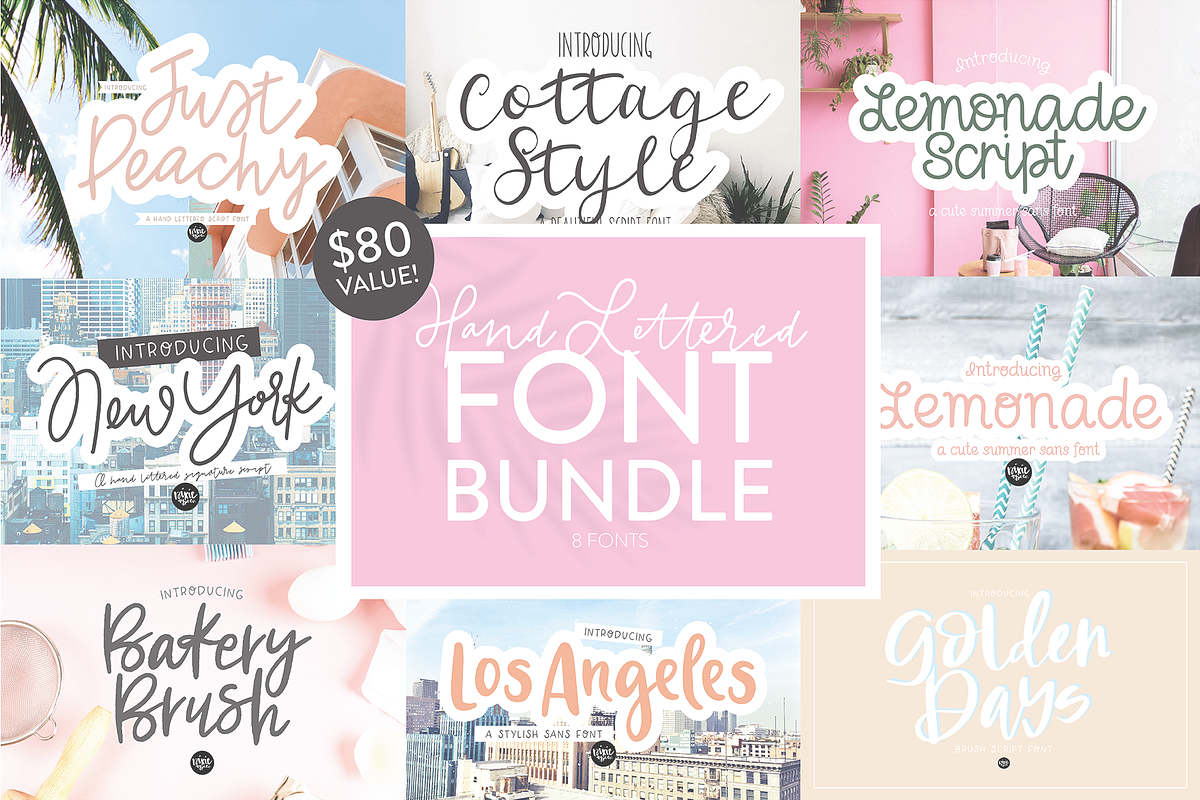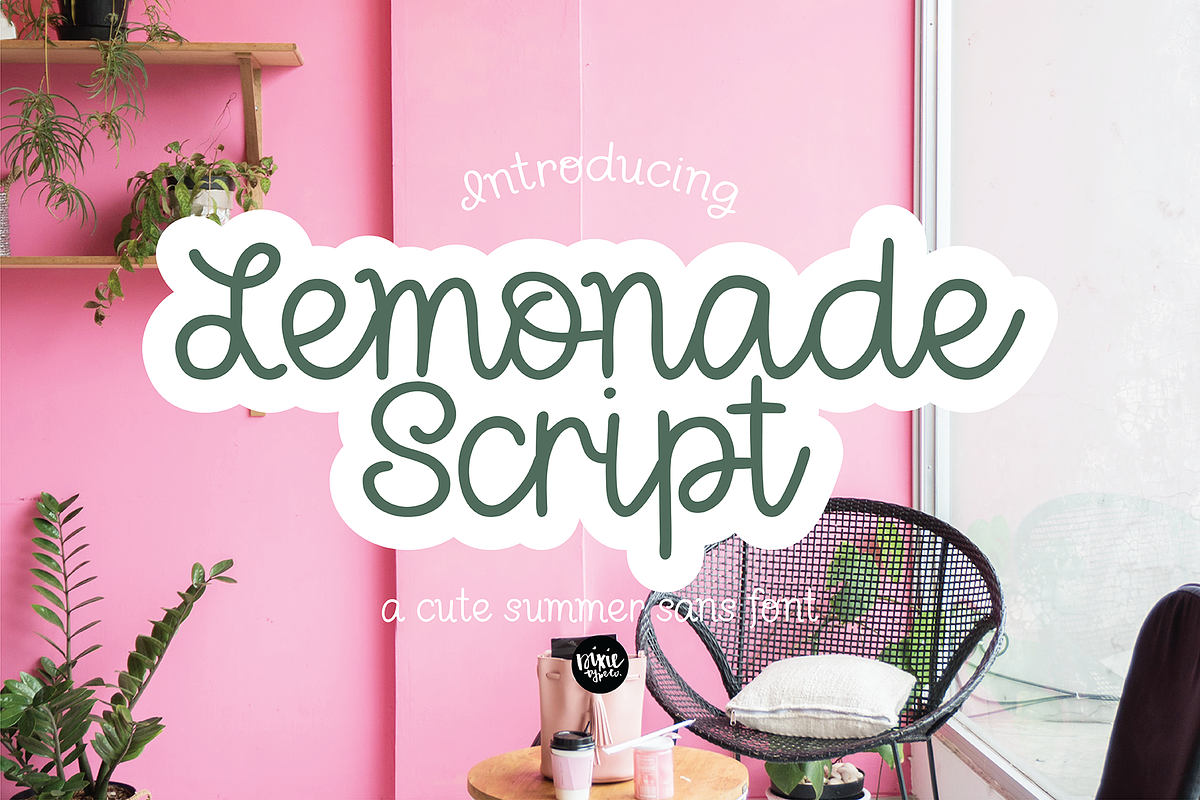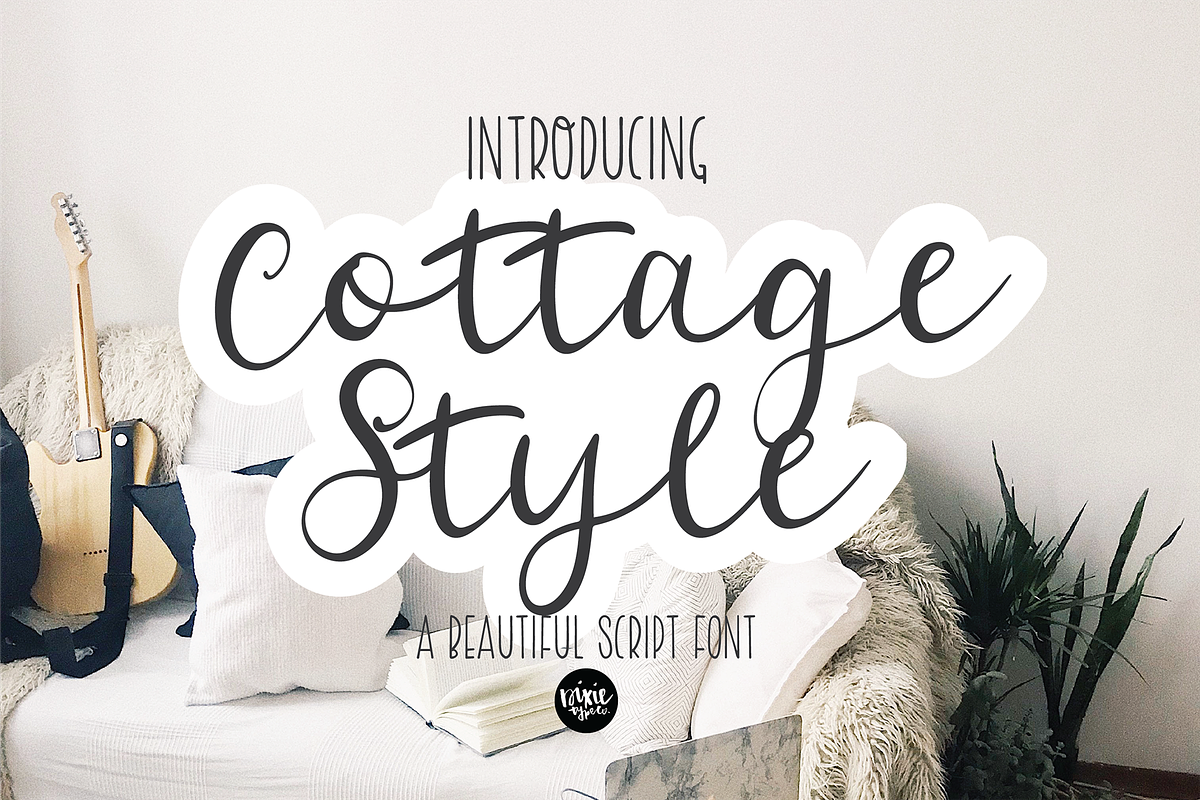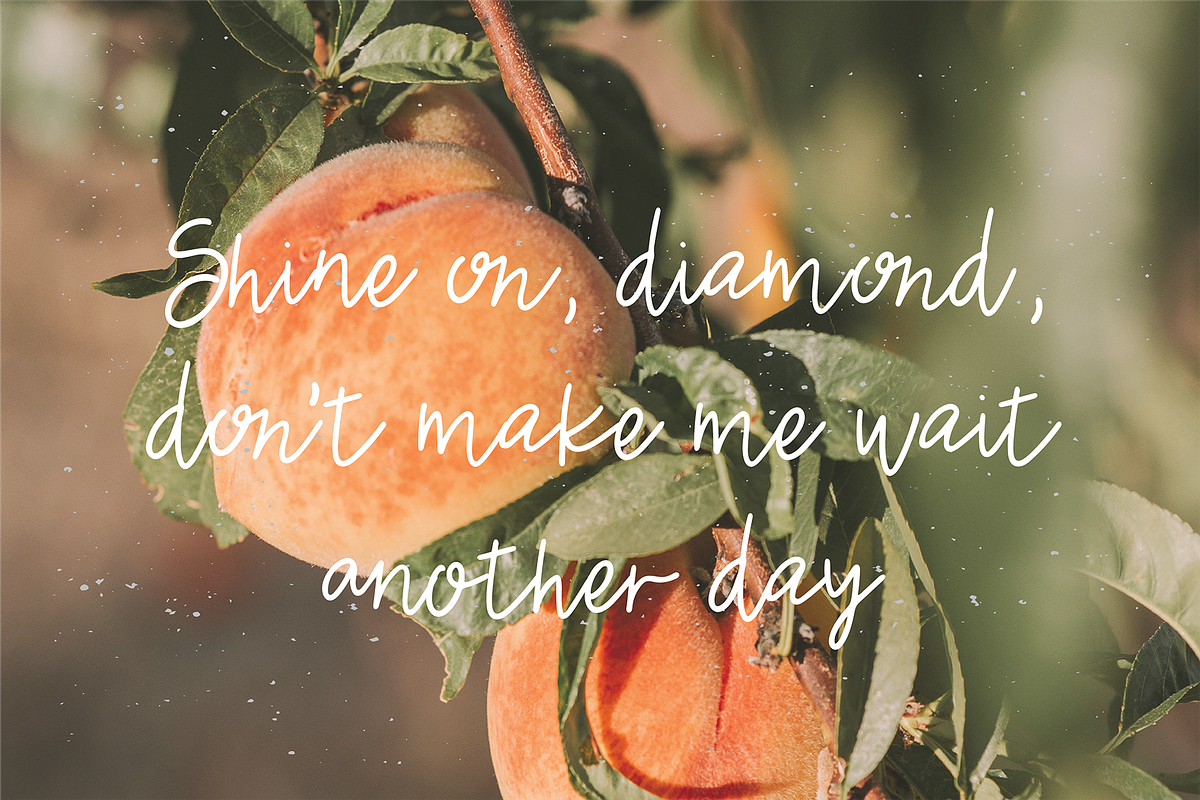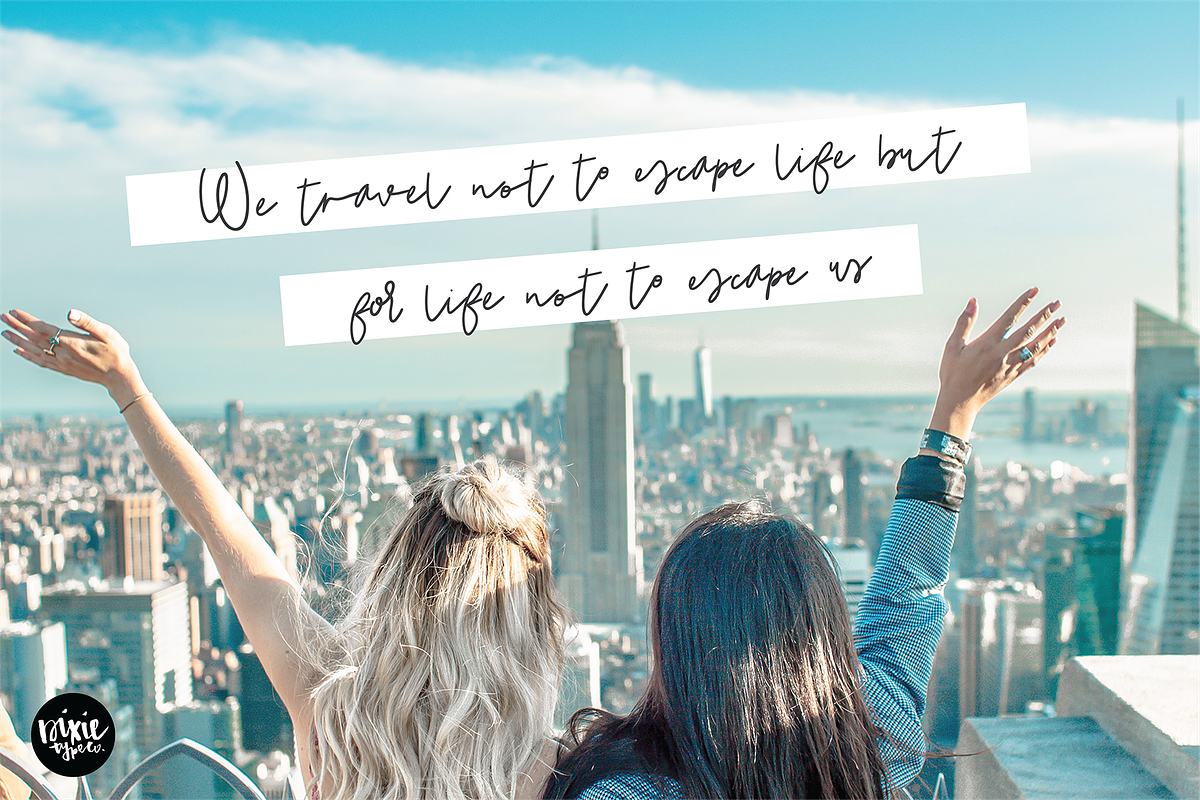
Hand Lettered Script Font Bundle
These fonts were all hand lettered with a brush and ink, or iPad Pro.
The 8 fonts included are:
Just Peachy New York Cottage Style Lemonade Script Bakery Brush Golden Days Los Angeles